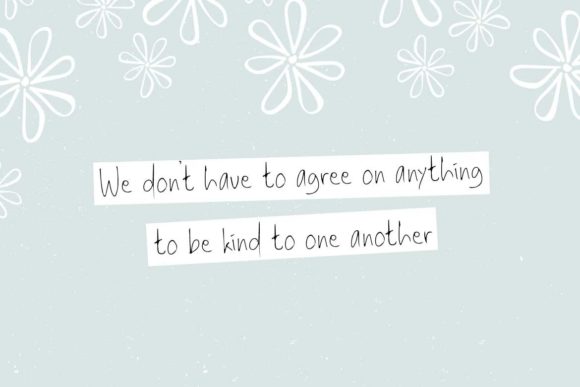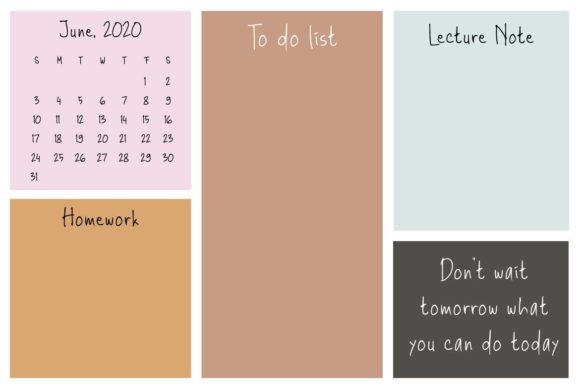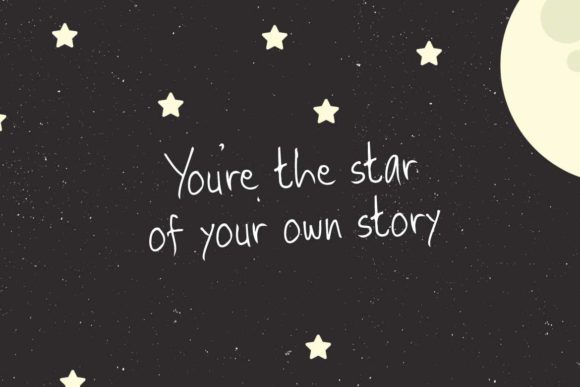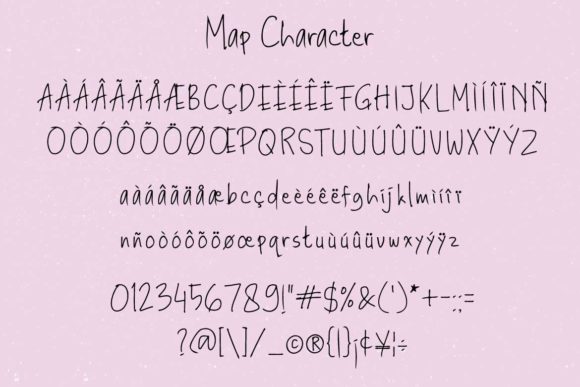
Hello Shieza Font
About Hello Shieza Font
Hello Shieza is a sweet, simple lettered and informal handwritten font. No matter the topic, this font will be an incredible asset to your fonts’ library, as it has the potential to elevate any creation.